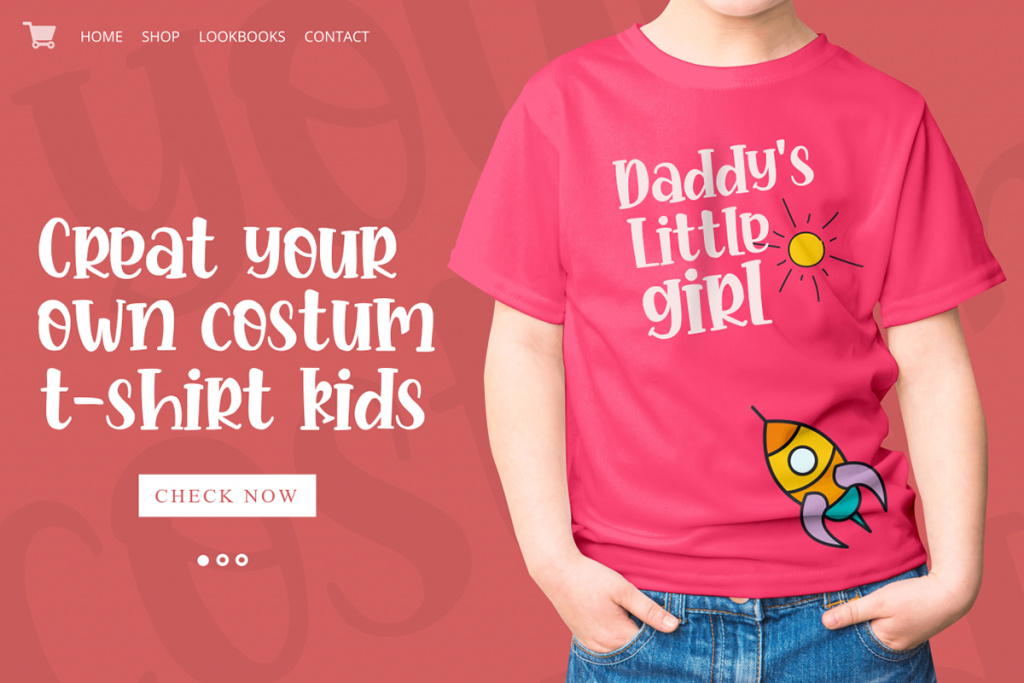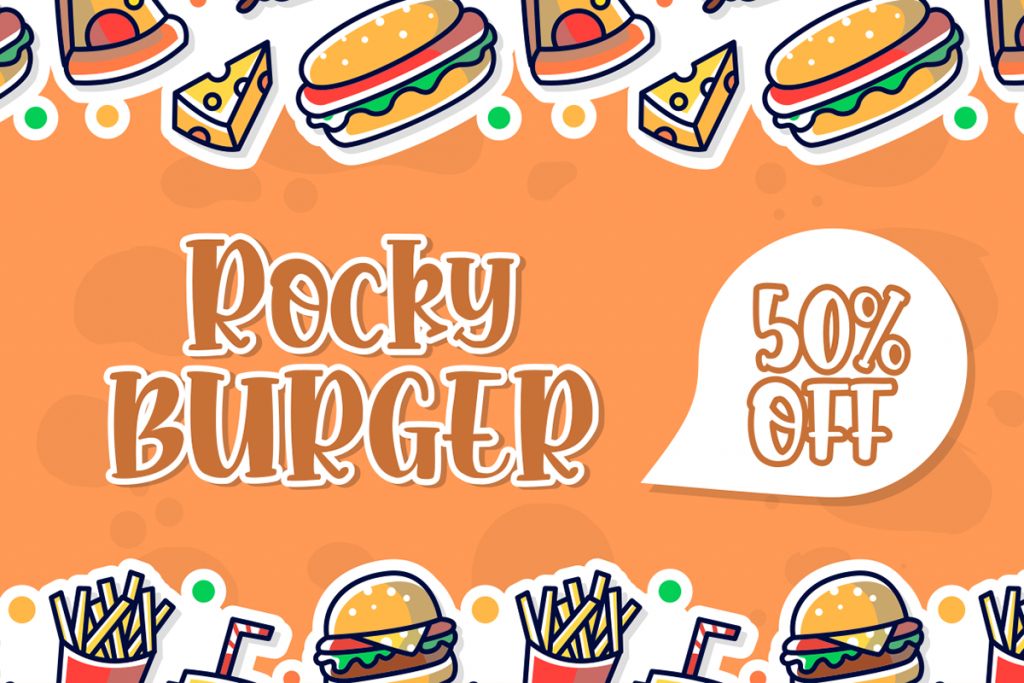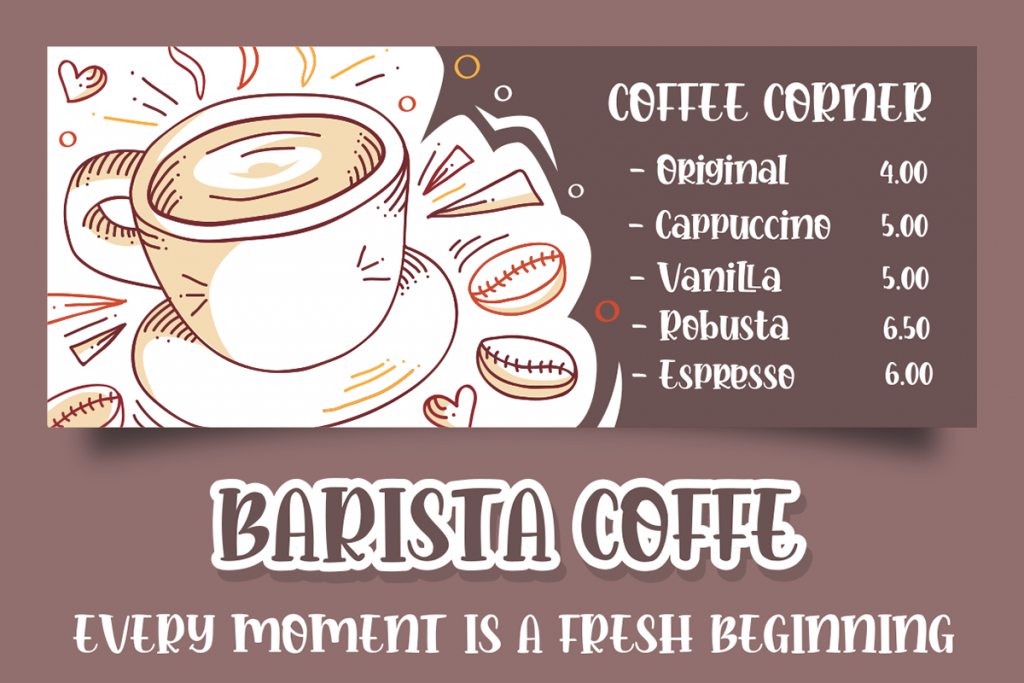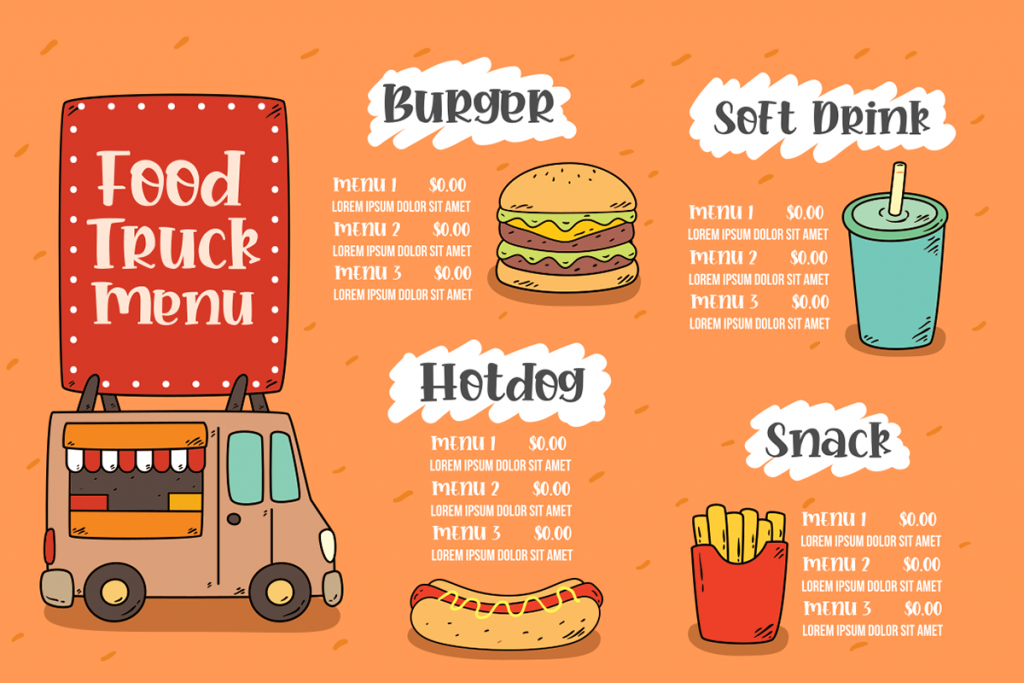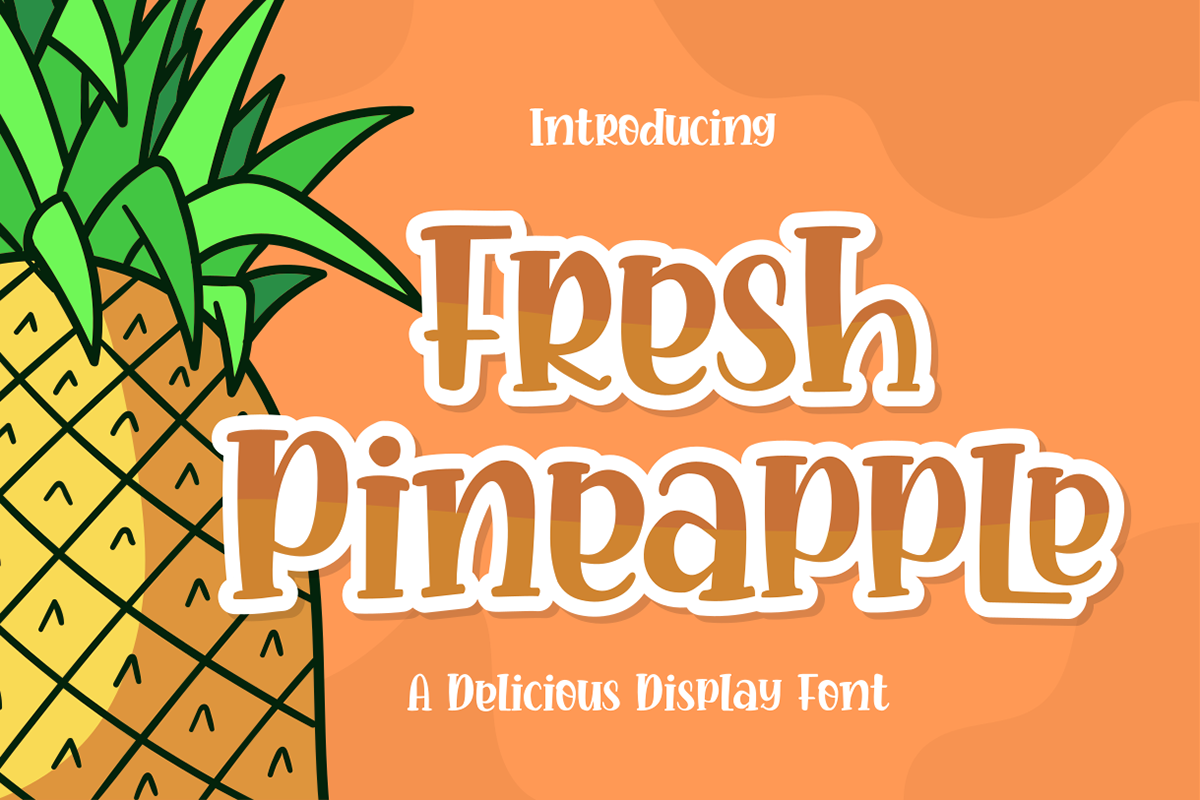
Fresh Pineapple: A Delicious Display Font For Free
Fresh Pineapple is a delicious, cute and quirky display font. It will add an incredibly joyful touch to your designs. Add this beautiful display font to each of your creative ideas and notice how it makes them stand out!